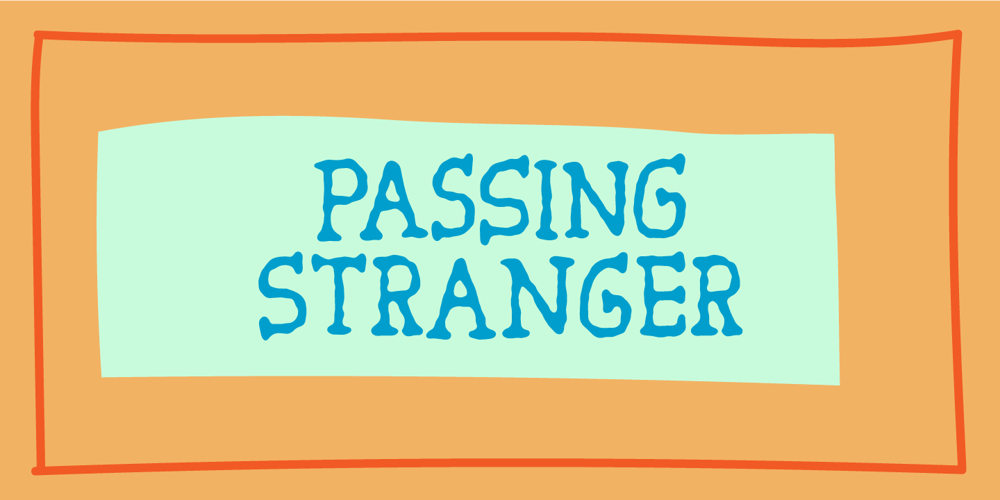
Passing Stranger Font Family was designed by Jakob Fischer and published by Bogstav. Passing Stranger contains 2 styles and family package options. Say hello to my all caps wannabe typewriter font. It’s distressed, but still perfectly legible!I have added 5 slightly different versions of each letter for a more handmade feeling, and of course multilingual support!